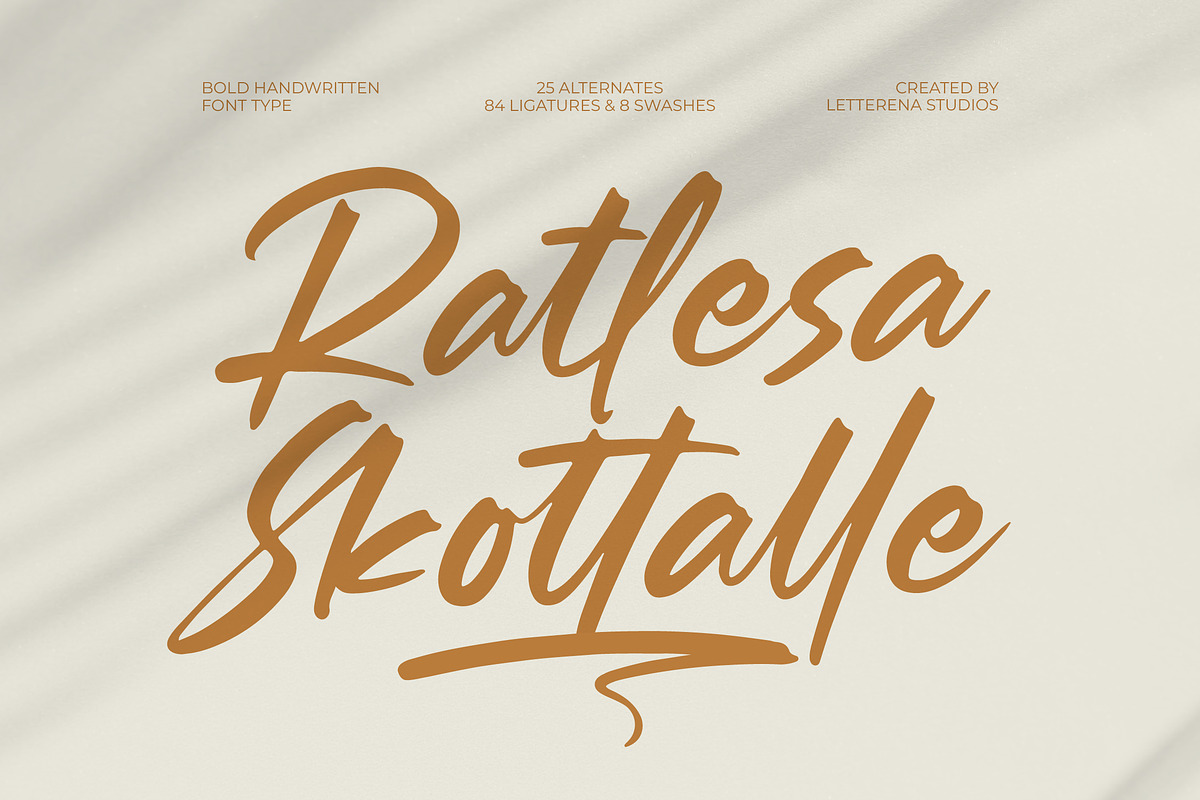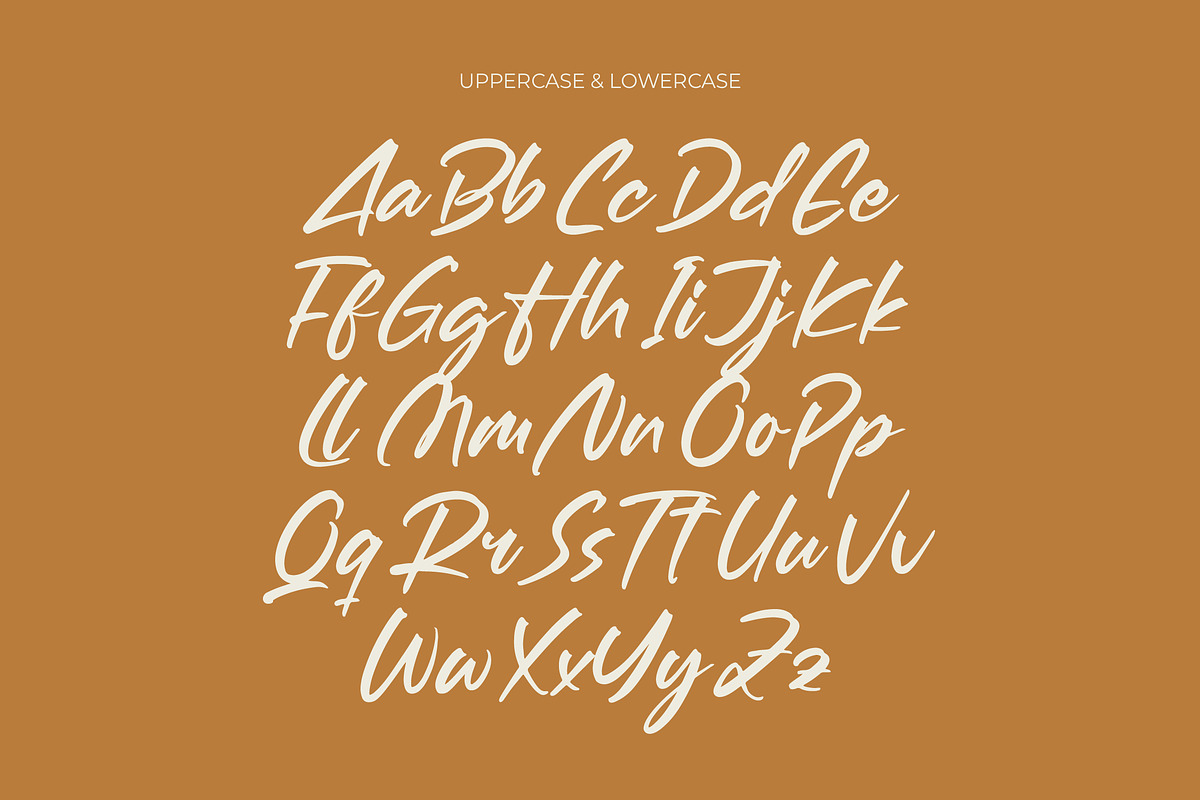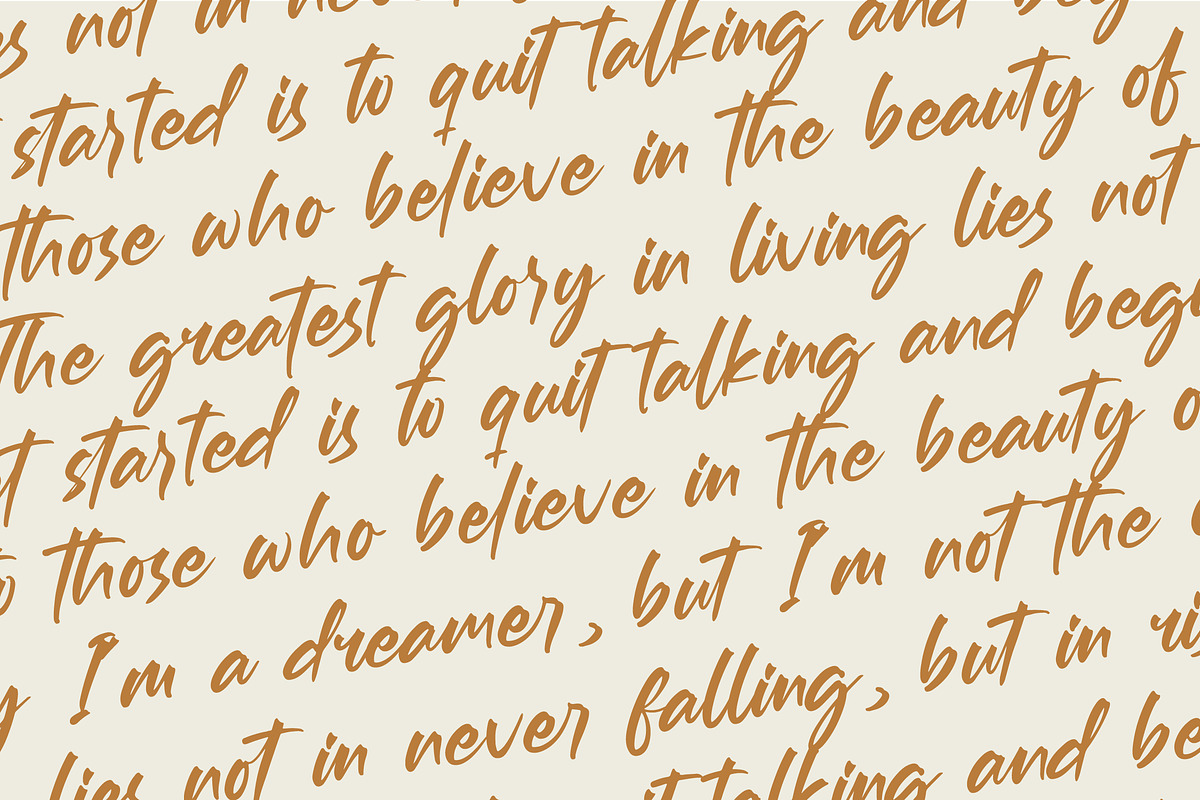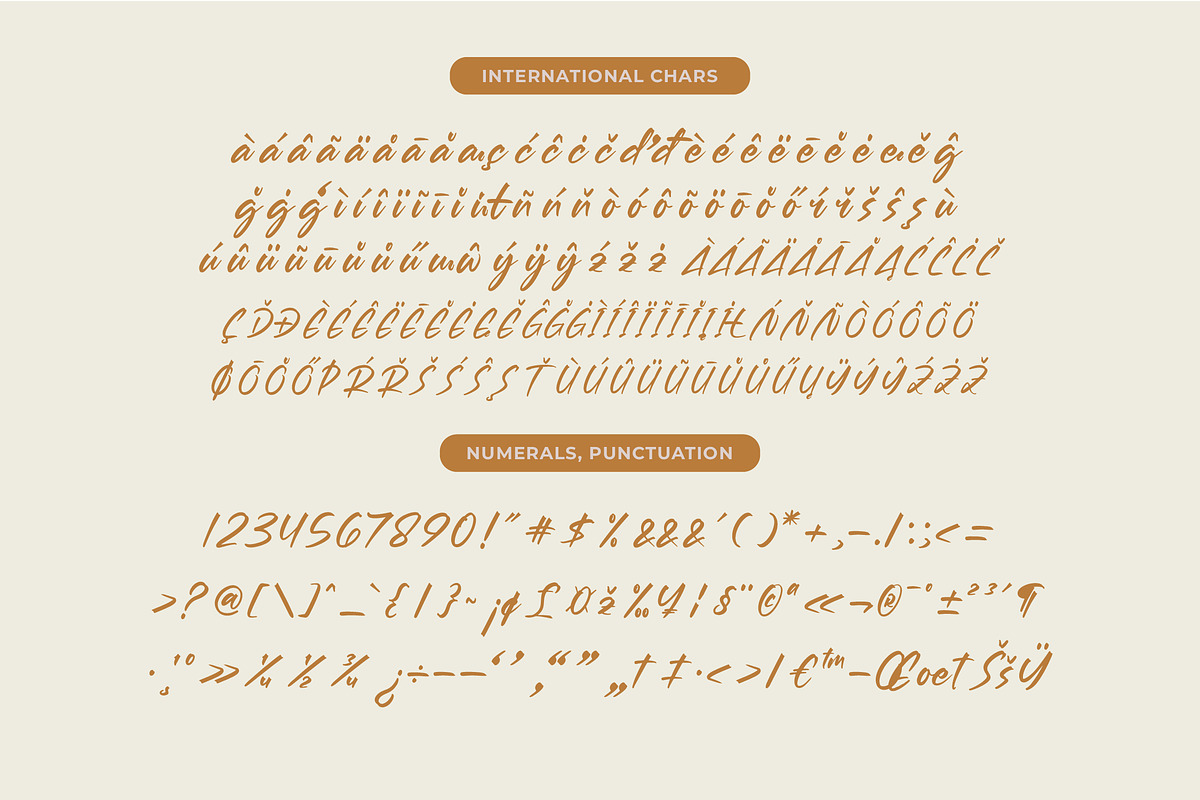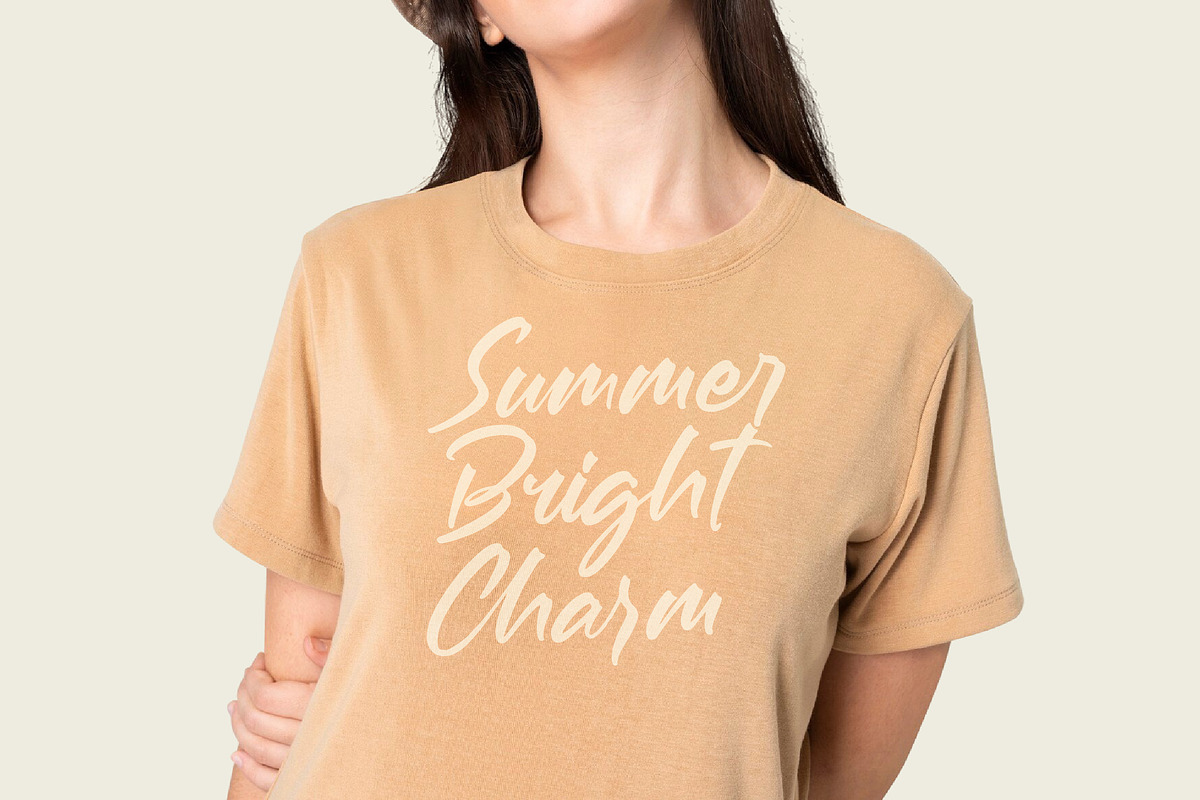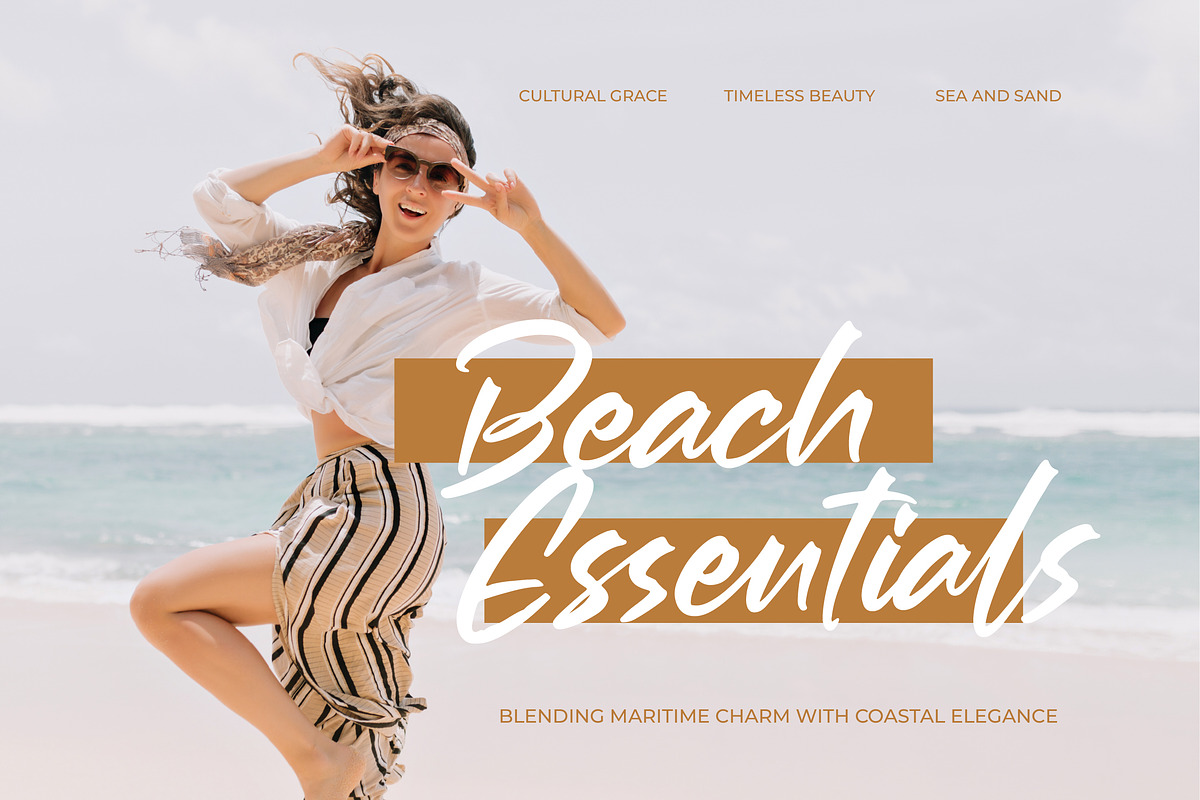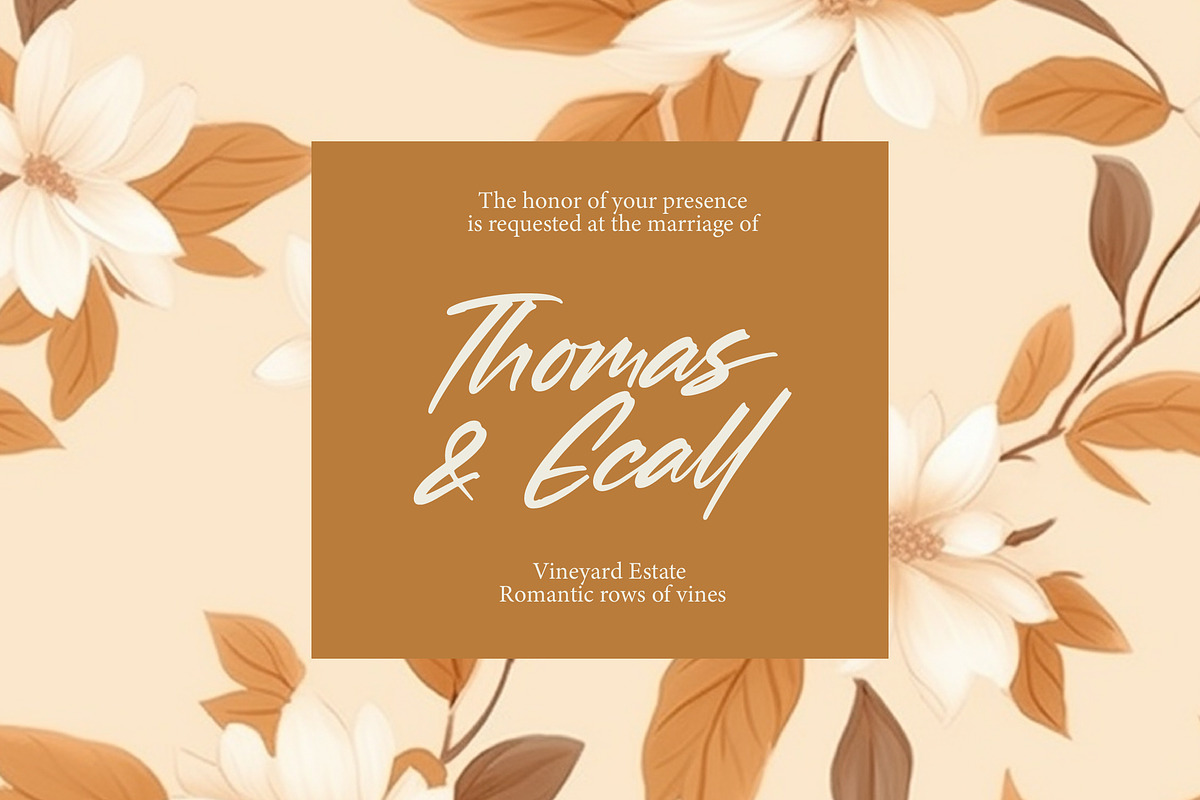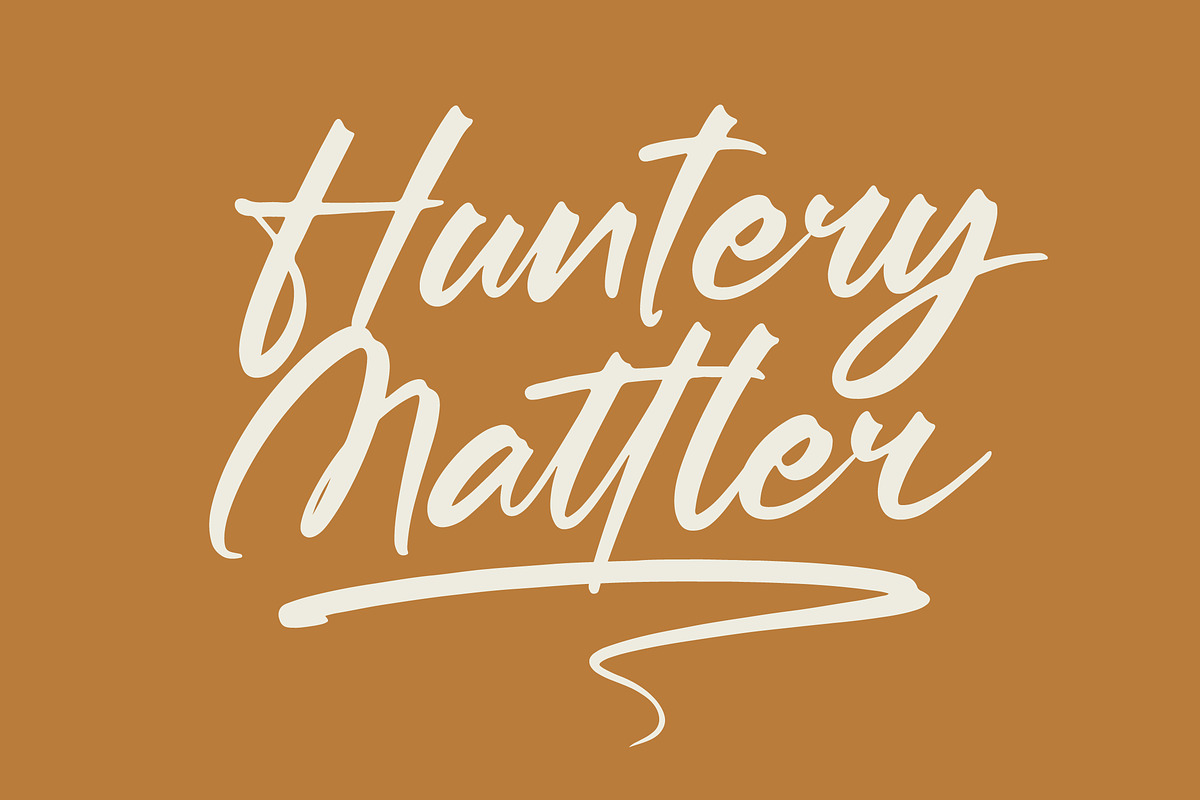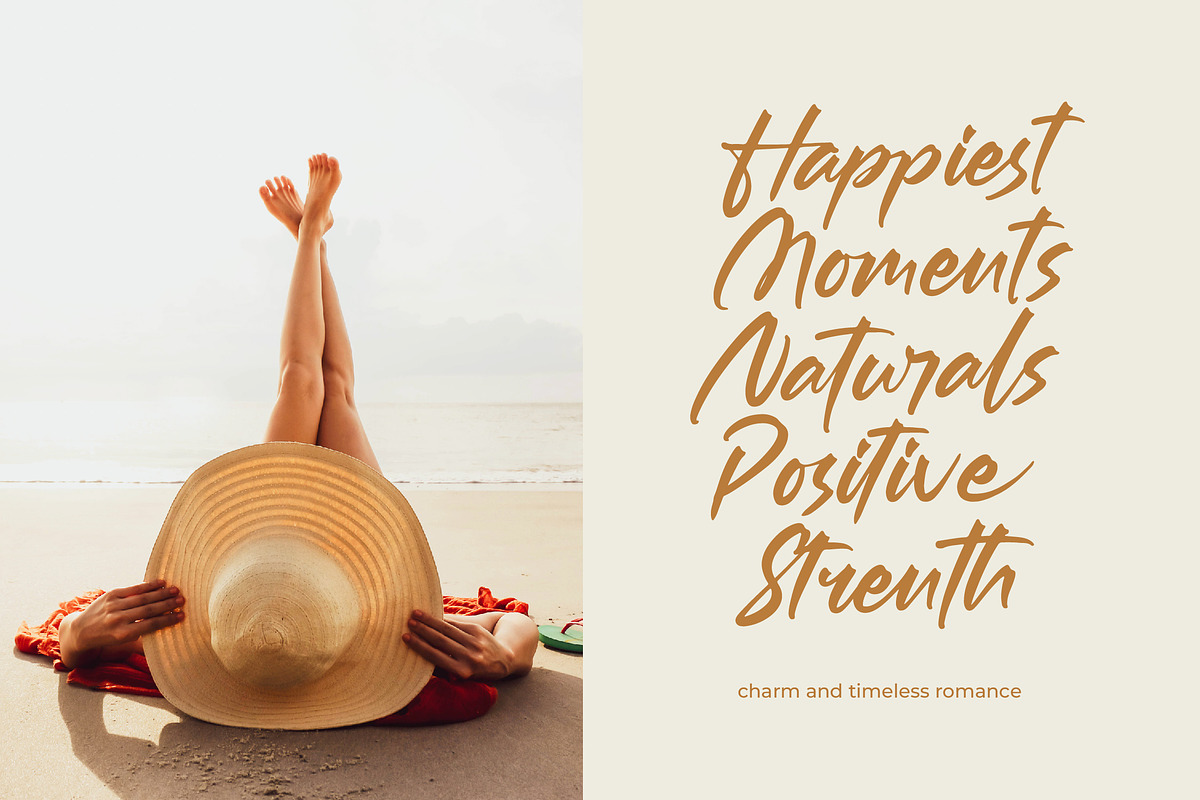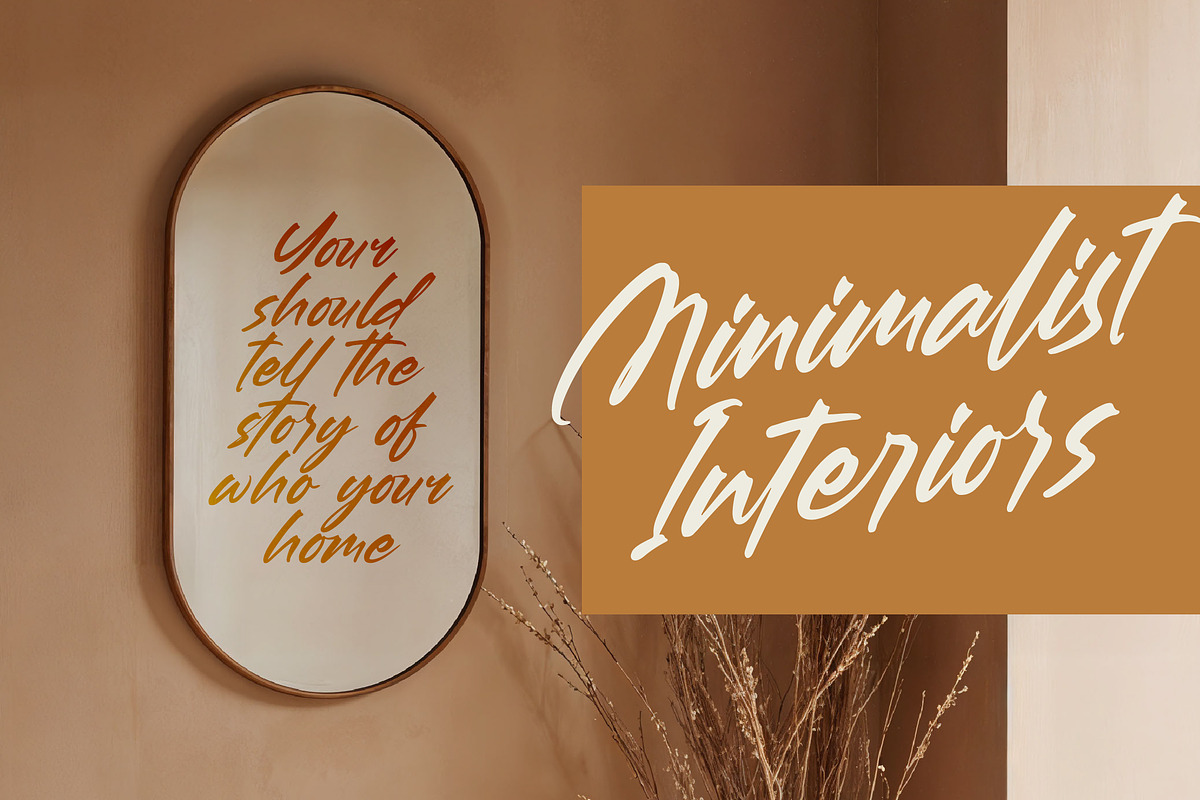
Ratlesa Skottalle Bold Handwritten
Ratlesa Skottalle - Bold Handwritten Font Type , from Letterena, is a Luxury Script font, suitable for any projects such as: logos, branding projects, homeware designs, product packaging, mugs, quotes, posters, shopping bags, t-shirts, book covers, name card, invitation cards, greeting cards, label, photography, watermark, special events, and all your other luxury and beautiful projects that need a Luxury Script taste.
- 084 Ligature 25 Alternate & 08 Swashes